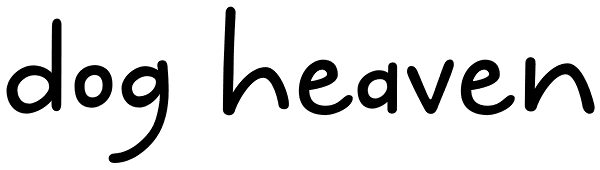
Dog Heaven
'dog heaven' is a sweet font featuring lower case, symbols, numerals & diacritics. channel your e. e. cummings and forgo those cumbersome caps! perfect for any occasion where fun is required.